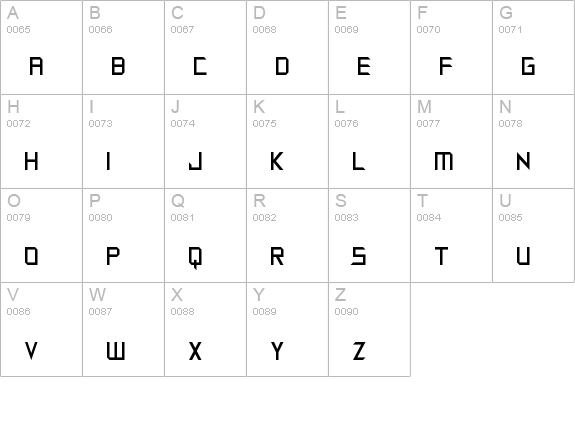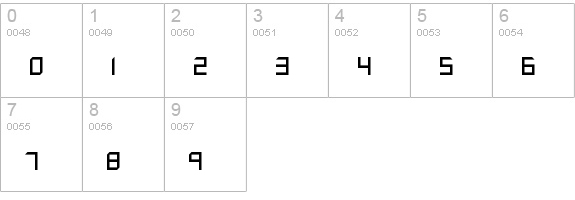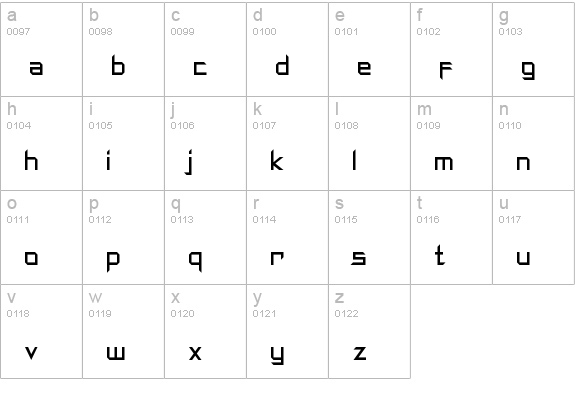
Synthetic Sharps Font Details
Synthetic Sharps font is a stunning display typeface that will add a modern and edgy touch to any design project. With its sharp and angular letterforms, this font captures attention and makes a bold statement. Whether you're designing a logo, poster, or website, Synthetic Sharps will instantly elevate your work to a whole new level. This font is perfect for those looking to make a powerful impact with their designs. Its unique style and attention-grabbing aesthetics make it ideal for branding, advertising, and any other creative endeavor that requires a strong visual presence. But the best part? Synthetic Sharps font is completely free! That's right, you can download this incredible font for absolutely no cost at FontsMarket.com. This means you can enjoy all the benefits of this outstanding typeface without breaking the bank. Whether you're a professional designer or a hobbyist, this free font is a must-have in your toolkit. Not only does Synthetic Sharps font offer a captivating visual appeal, but it also boasts excellent legibility. Each letter is meticulously crafted to ensure clarity and readability, even at smaller sizes. This makes it an ideal choice for various projects, from headlines and titles to body text. With its versatility and striking design, Synthetic Sharps font is sure to impress. Download it for free today at FontsMarket.com and unleash your creativity with this remarkable typeface.